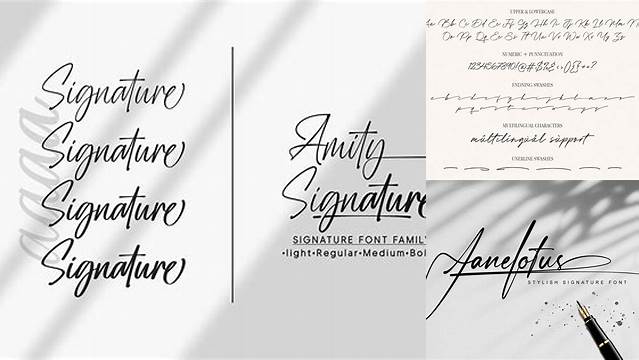
Free Signature Script Fonts: Download & Design Guide
Hey design enthusiasts! Looking to add a touch of elegance, personality, or a handwritten feel to your projects? Well, you've come to the right place! This article is your ultimate guide to signature script fonts, offering you a treasure trove of free downloads and a generous dose of design inspiration. We'll explore the allure of these fonts, how they can transform your creative endeavors, and where you can get your hands on them without spending a dime. So, buckle up, because we're about to dive deep into the world of beautiful typography!
The Allure of Signature Script Fonts
So, what's the big deal about signature script fonts? Why are they so popular, and why do designers and everyday folks alike love them? The answer lies in their unique ability to evoke a sense of authenticity, sophistication, and personal touch. These fonts, designed to mimic handwriting, offer a distinct visual appeal that can elevate any design.
First off, the main thing, these fonts bring a human element to your work. They break away from the cold, impersonal feel that some sans-serif or block fonts can create. This is especially useful when you want to connect with your audience on a more emotional level. Imagine a wedding invitation. A signature script font can convey romance, intimacy, and personalization. It is a whole different vibe. Or think about a logo for a boutique brand. A beautifully crafted script font can communicate luxury, elegance, and exclusivity. It's all about the feeling you want to create.
Secondly, there's a wide variety. Signature script fonts come in all shapes and sizes, from delicate and flowing to bold and edgy. Some are inspired by classic calligraphy, while others have a more modern, playful vibe. You can find the perfect font to match the mood and style of your project. This versatility is one of the greatest strengths of script fonts.
Thirdly, they are excellent for branding. Using a signature script font in your branding can make your business stand out. It adds a memorable and unique touch. Think about the way some of the world's most famous brands use signature fonts to cement their image. A well-chosen script font can become a recognizable part of your brand identity. You want people to remember your name and associate it with the values your brand represents.
Furthermore, they are great for adding visual interest. Text in a script font instantly grabs attention. It can be used to highlight important information, create headings, or add flair to any design element. Used sparingly, script fonts can draw the eye and make your design more engaging. Just remember to use them thoughtfully, so they do not overwhelm other text.
Finally, it's worth mentioning that many signature script fonts are incredibly versatile. You can use them for various projects, including logos, websites, social media graphics, invitations, greeting cards, and even printed materials. The possibilities are endless!
Next, DaFont is another great source. This website has a massive collection of fonts, with a dedicated section for script fonts. While some fonts require a commercial license, there are many free options available for personal and commercial use. The interface is a bit more basic than Google Fonts, but the sheer variety of fonts makes it worth exploring. Be sure to check the license for each font before you use it. Some are free for personal use only. This is super important to avoid any legal problems.
Then, there is Font Squirrel. Font Squirrel is known for its high-quality, free fonts. It features a curated collection of script fonts that are perfect for various design projects. They are always working to ensure that all the fonts on their site are 100% free for commercial use. This is something that gives you peace of mind! This is another great option, offering quality fonts. They have a good selection of script fonts and an easy-to-use interface.
Also, do not forget about BeFonts. This site has a great selection of script fonts that you can download for free. They do not have as many fonts as the others mentioned above, but they can be a good source for finding something new and unique.
Finally, social media and design blogs are also great places to find free signature script fonts. Follow design-related accounts and blogs. They often share free font downloads and resources with their followers. This is a good way to stay updated on the latest trends and find new fonts. Check out Pinterest and Instagram for inspiration. You will find tons of free fonts and design ideas.